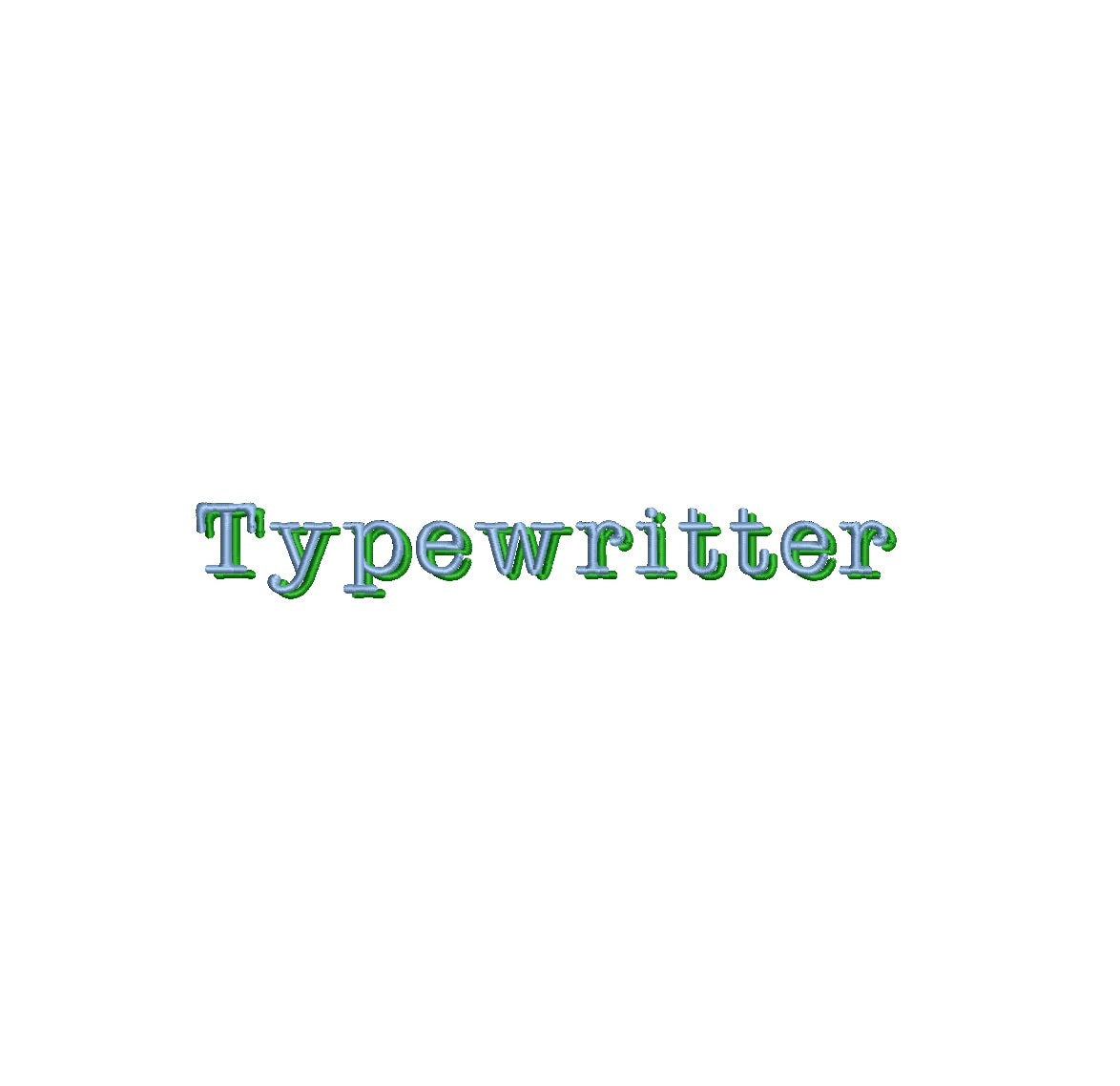
Elevate your embroidery with the classic Typewriter Shadow ESA font. Designed for Wilcom Studio e4.5.6 and Hatch 3 versions and newer, this font seamlessly merges vintage charm and compatibility. Craft nostalgic designs with its distinctive shadow effect, adding depth and character to your lettering. Ideal for various applications, from retro monograms to vintage text layouts. Unleash your creativity as Typewriter Shadow ESA font enriches your embroidery. Elevate your designs and make a lasting impression. Choose this font to infuse your creations with timeless sophistication, redefining your embroidery artistry with a touch of nostalgia.